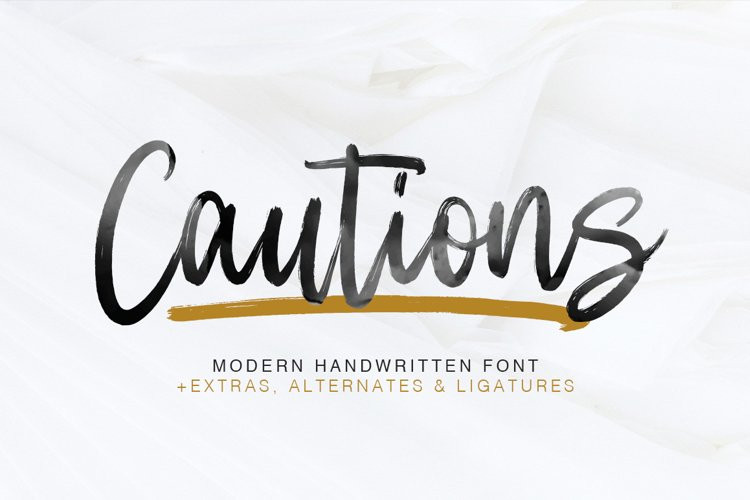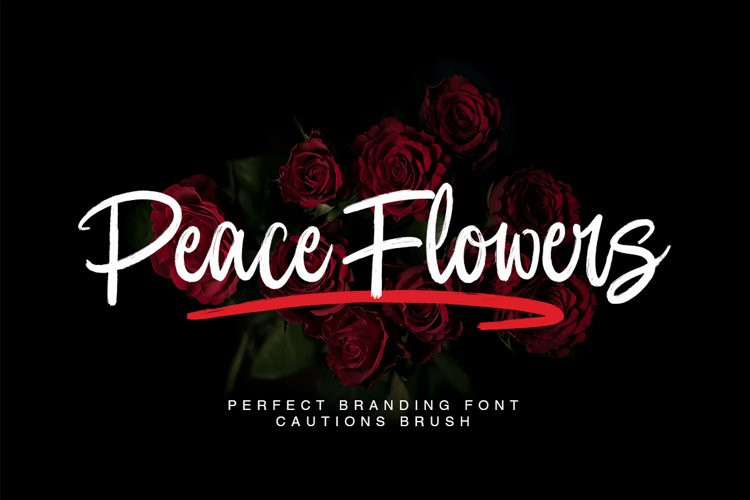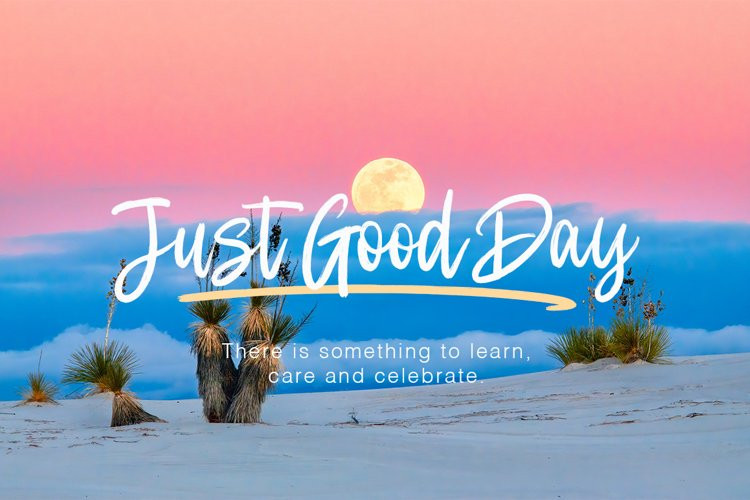
Cautions Font
Cautions FontA fabulously fun yet elegant script font with tons of energy, allowing you to create beautiful hand-made typography in an instant. With extra bouncy curves & loops, Cautions Brush is guaranteed to make your text stand out – perfect for logos, printed quotes, invitations, cards, product packaging, headers and whatever your imagination holds.
What’s really awesome is that Cautions Brush comes with a complete set of lowercase alternates, which allows you to create even more authentic custom-feel text. Another great feature is the bonus ornaments font, which allows you to add some really unique and elegant finishing touches to your script text.
Cautions Brush • A handwritten script font containing upper & lowercase characters, numerals and a large range of punctuation.
Cautions Extras • A set of 20 hand-drawn swashes & doodles, the perfect finishing touch to underline your Cautions Brush text & doodles for perfect lettering logos. Simply install this as a separate font, select it from your font menu and type any A-Z, a-z & 0-9 character to create a swash & Doodles.